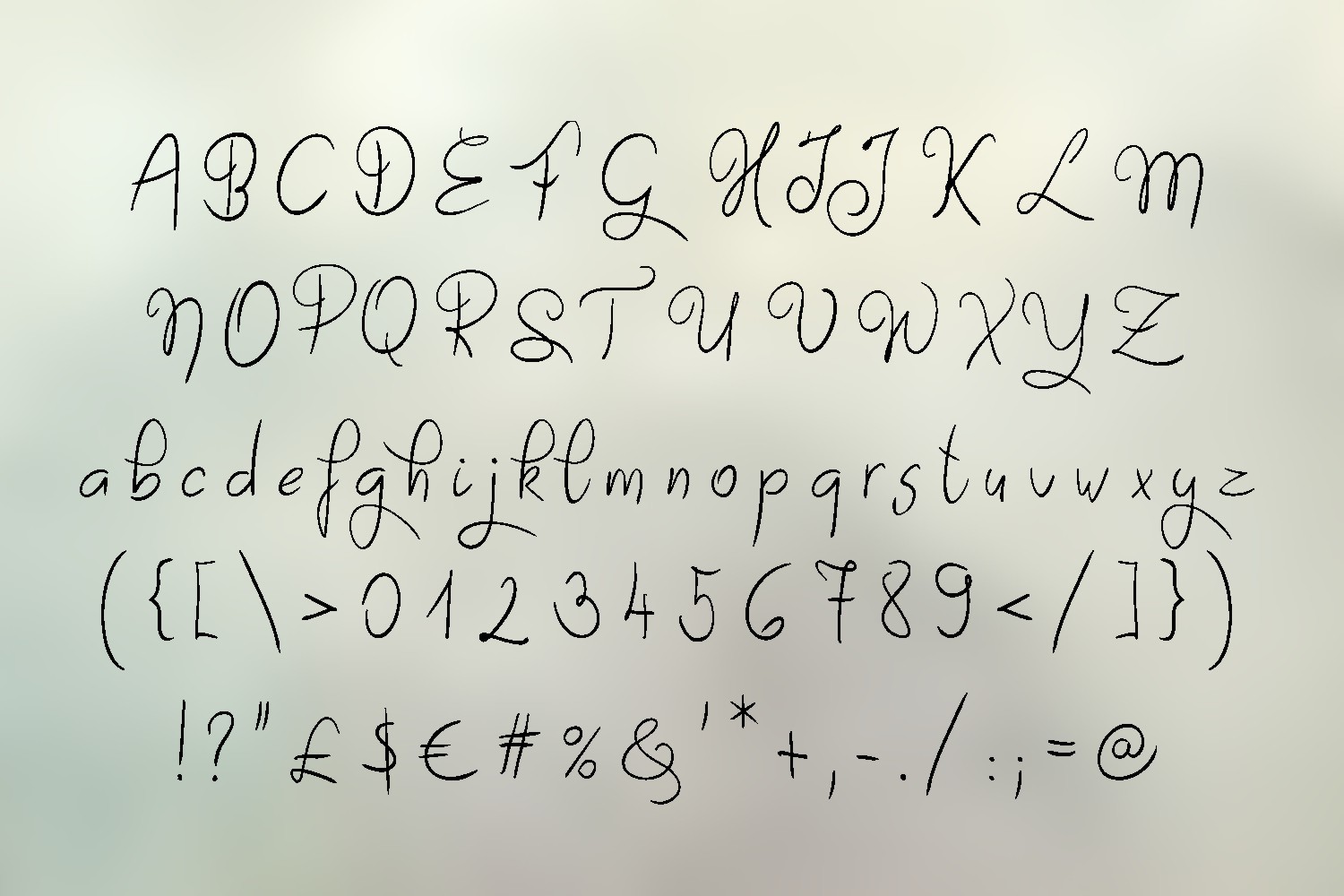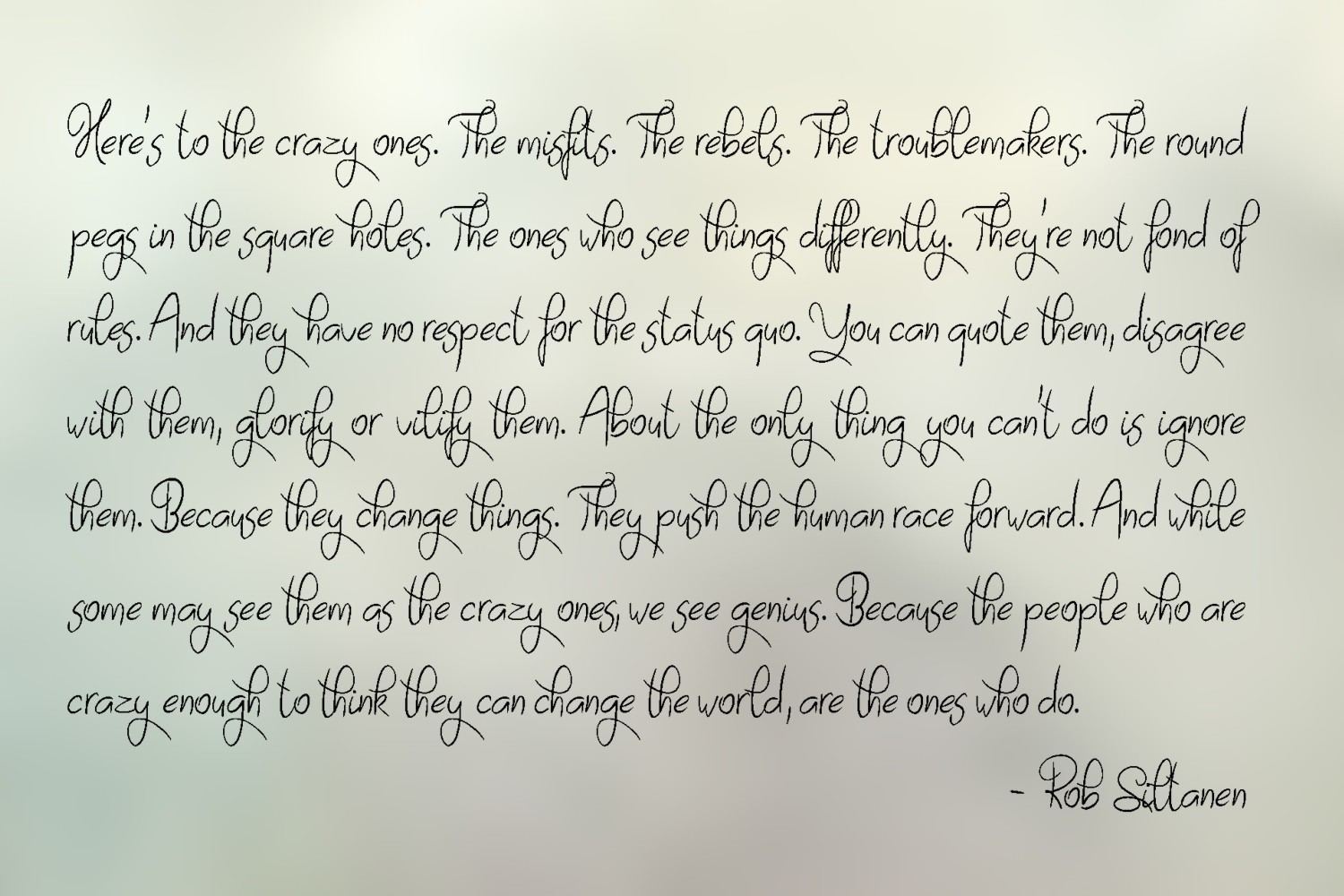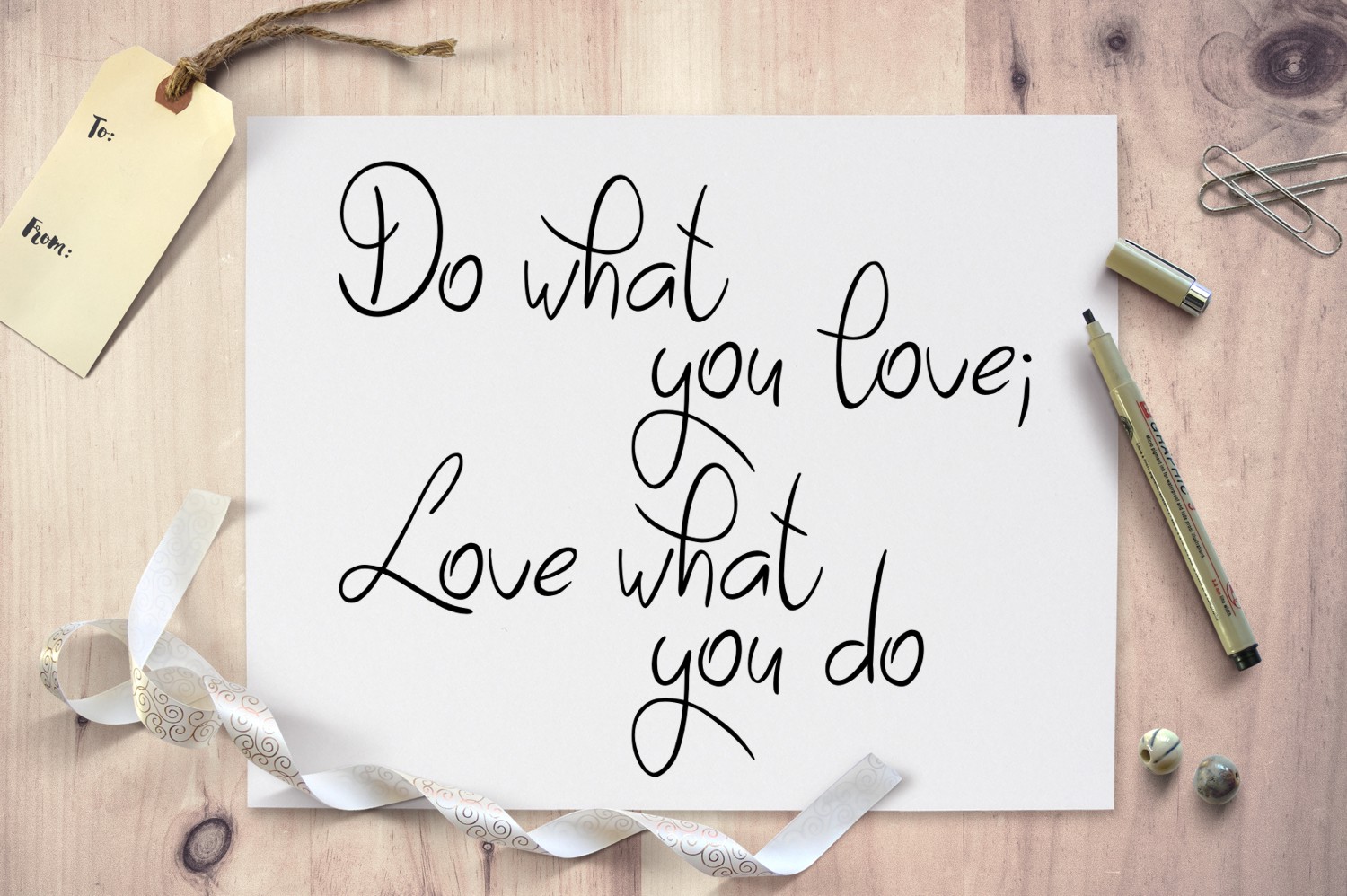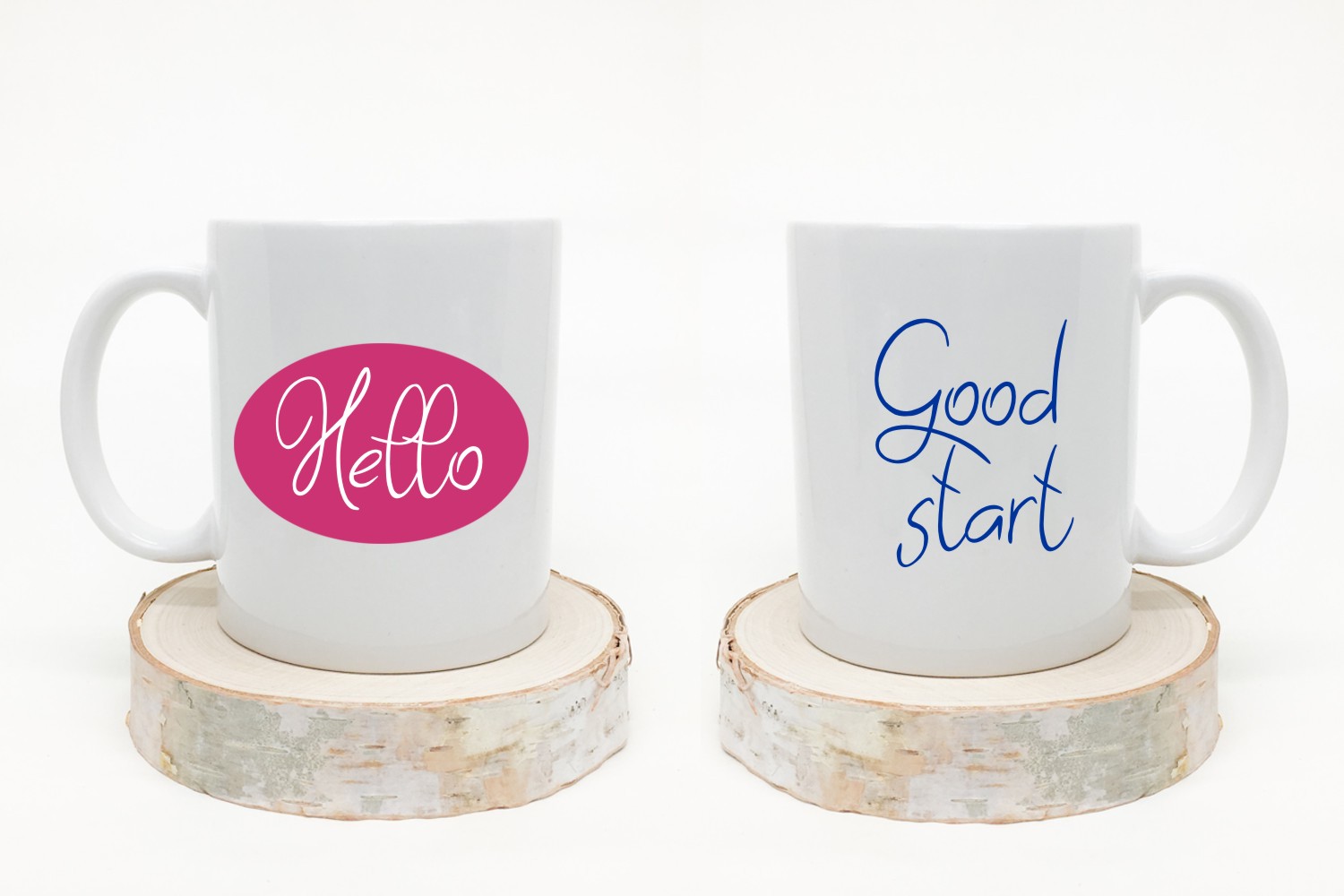
HomeScript FontsSayes Font Script Fonts Sayes Font FacebookXPinterestWhatsApp Sayes Font Poster 2 Sayes Font Poster 3 Sayes Font Poster 4 Sayes Font Poster 5 About Sayes Font Sayes is a smooth, handwritten typeface. You can use this font for many types of different projects. DOWNLOAD ON CREATIVE FABRICAThis font is sold and delivered by Creative Fabrica. Font Canyon may earn a commission if you buy through this link. People also explored Wildy Sign Font Christtiano Font Qa Ponds Font Flamingo Font Frankenjura Font Delio Font Juliante Font Madisson Font Shabby Font 312 0 TagsSayes Font Previous articleEvolution FontNext articleBeauty Rains Font LEAVE A REPLY Cancel reply Comment: Please enter your comment! Name:* Please enter your name here Email:* You have entered an incorrect email address! Please enter your email address here Website: Save my name, email, and website in this browser for the next time I comment. Personal Use Free The Brighton Personal Use Free Read more about this font Boronic Personal Use Free Read more about this font Pan Pizza Personal Use Free Read more about this font Gaboed Personal Use Free Read more about this font BLOG Free vs Paid Fonts: Why Investing in Premium Fonts Is Worth It Free vs Paid Fonts: Why Premium Fonts Are Worth It in 2025 The debate of free vs paid fonts continues in the design world. While... How to Cut Any Font on Cricut: Convert a Font to SVG (Free) Top 7 Google Fonts Alternatives for Faster and Privacy-Friendly Web Design (2025) Fonts That Capture the Spirit of New York City